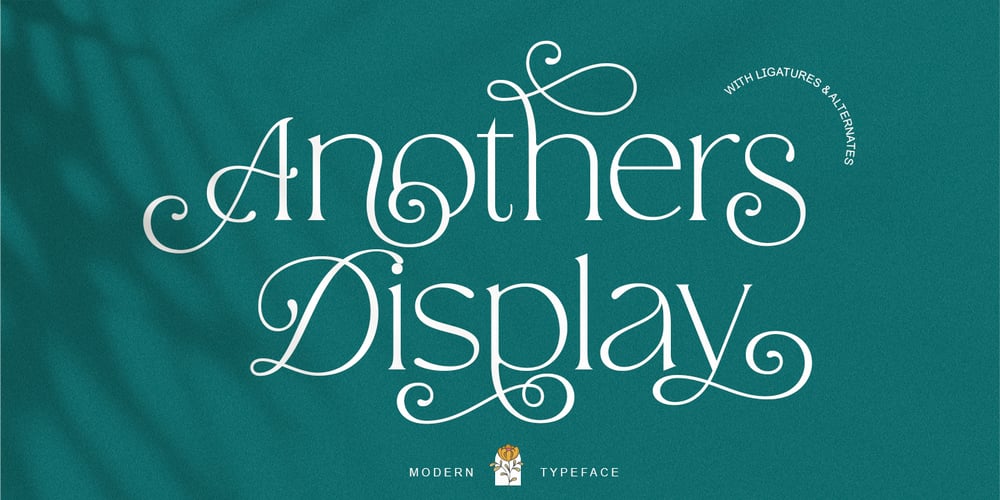
Anothers Display
Anothers Display font
Anothers Display Font Family was designed by Dean Nugraha and published by Sansakerta. Anothers Display contains 1 styles and family package options. Another DIsplay is a special modern stylistic style font. Made with accurate accuracy with beautiful curves. With alternative characters and ligatures that make your work very special. It is perfect for branding design, logos, greeting cards, title packaging. and other designs. Immediately use our fonts to make your work even more amazing.Another Display is also included full set of: uppercase and lowercase letters multilingual support numerals punctuation Ligature Characters Stylistic Alternates Chararacter Wish you enjoy our font and if you have a question, don’t hesitate to drop message & I’m happy to help ๐Ÿ™‚